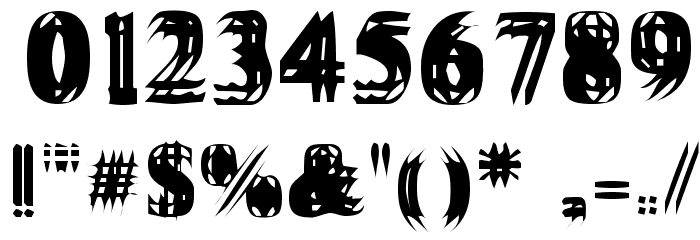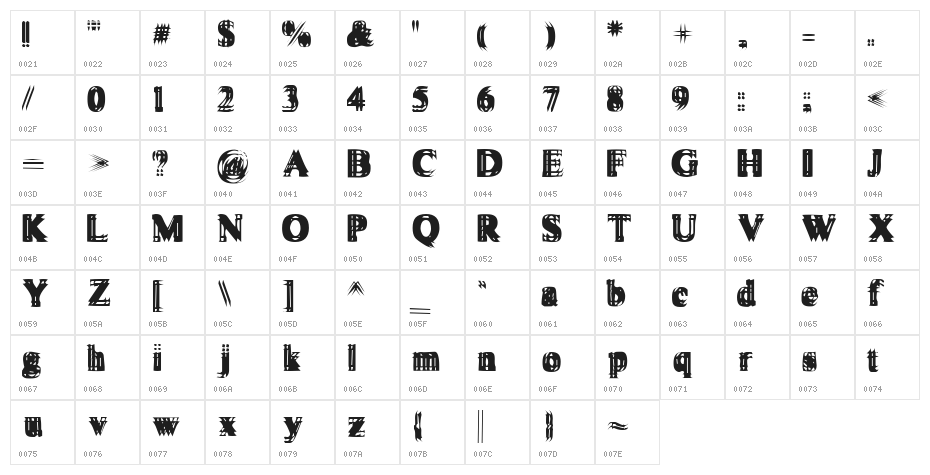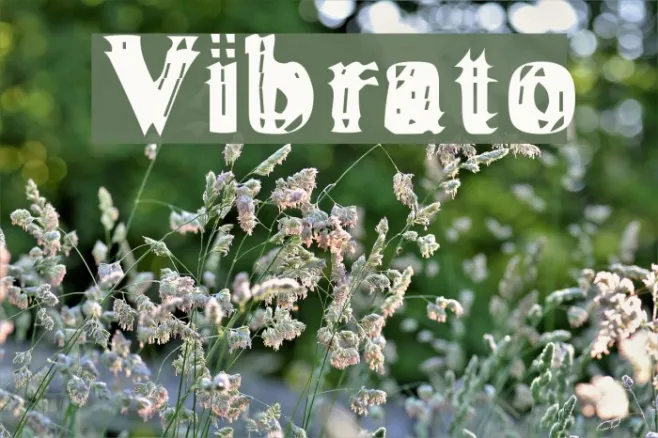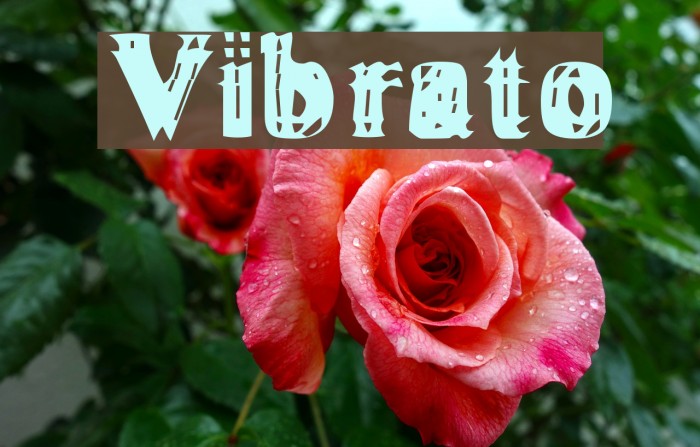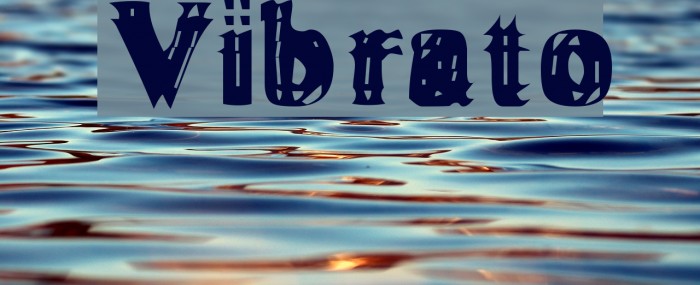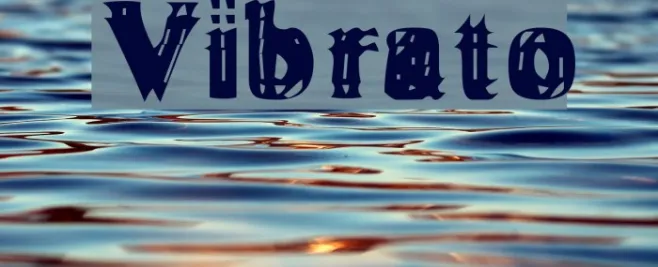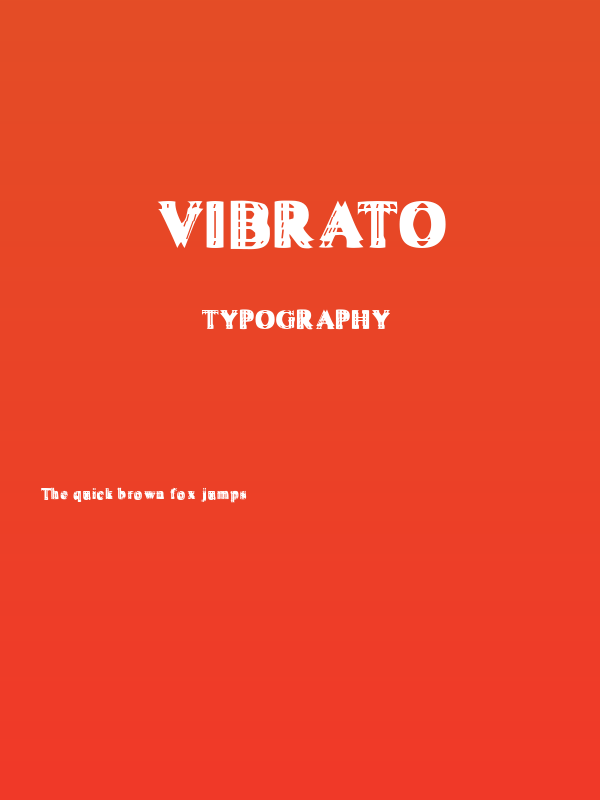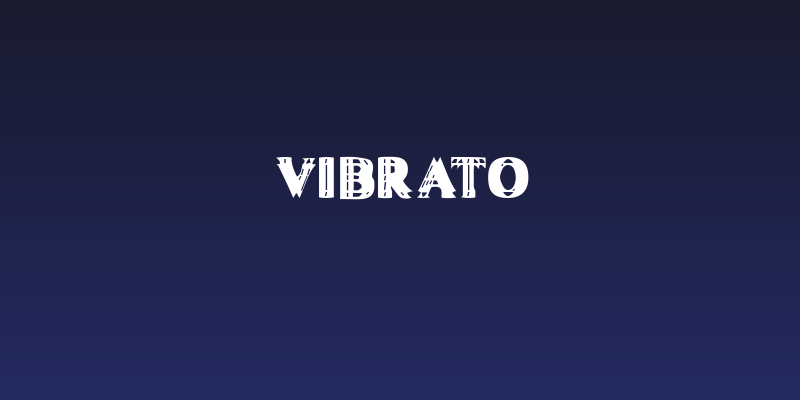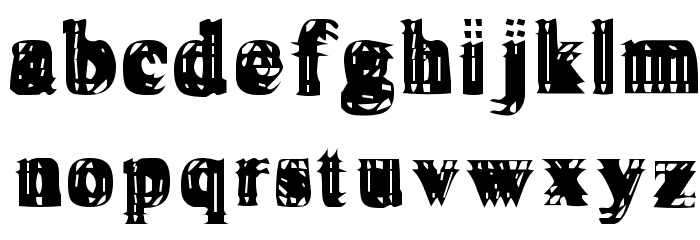
Vibrato Font
Vibrato Description
This font features a bold and dynamic design with a distinct decorative flair. Each character is adorned with sharp, angular cuts and slashes, giving it a sense of movement and energy. The uppercase letters are particularly striking, with their bold presence and intricate detailing. The lowercase letters maintain the same energetic style, ensuring consistency throughout the typeface. Numbers and special characters are equally well-crafted, making this font versatile for various applications. The overall design is eye-catching and perfect for projects that require a bold statement.
| Proposed Projects | Ideal for music album covers, posters, event flyers, and branding that requires a bold, energetic statement. |